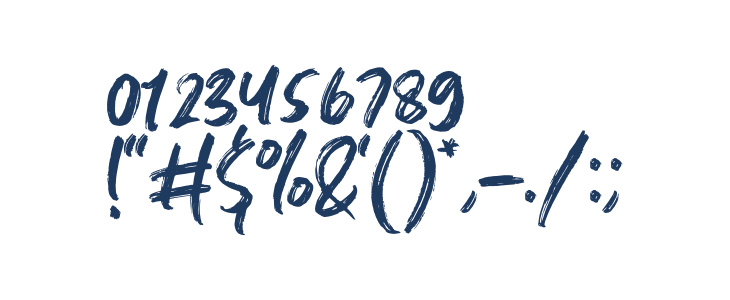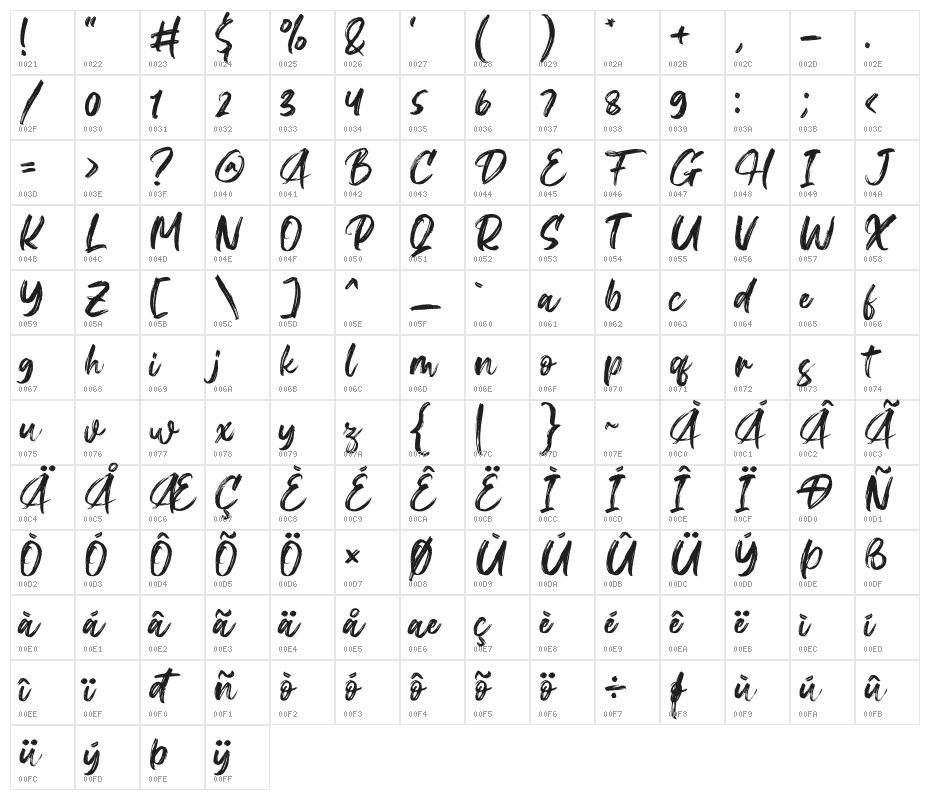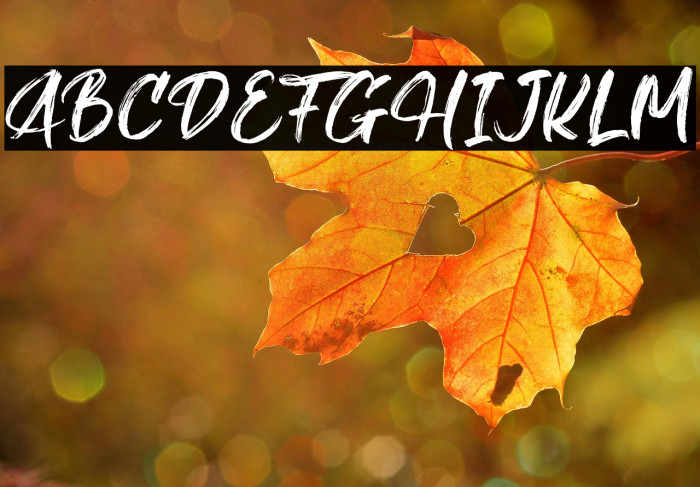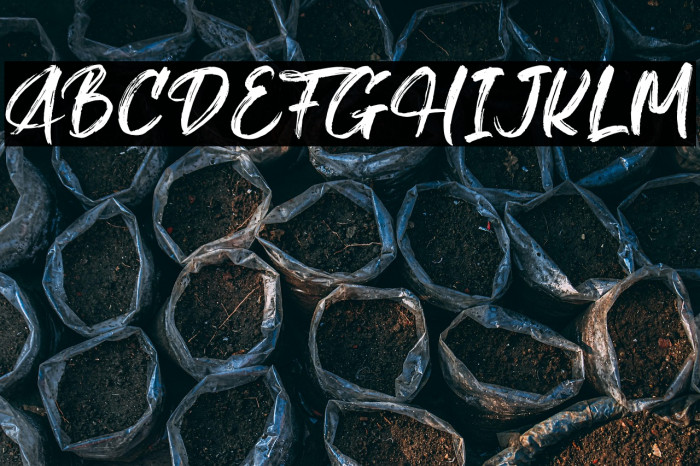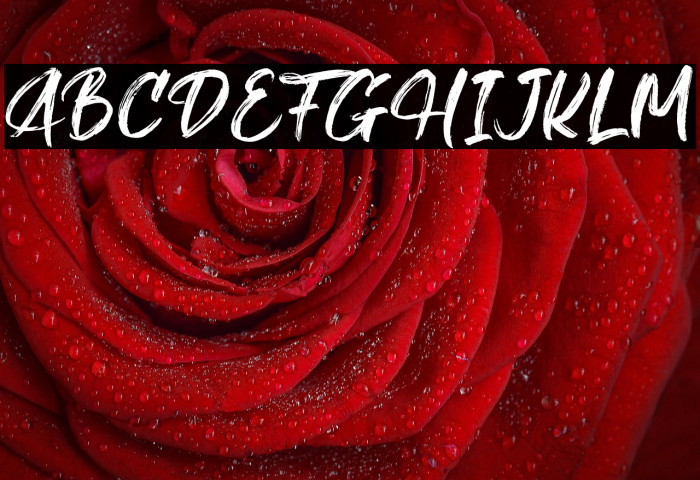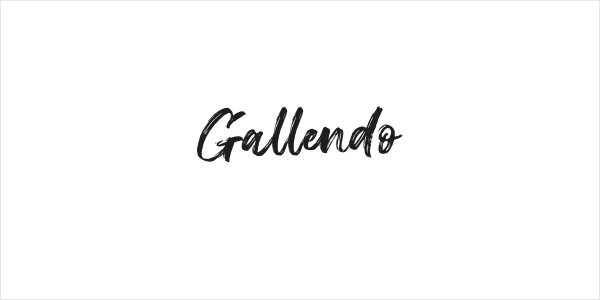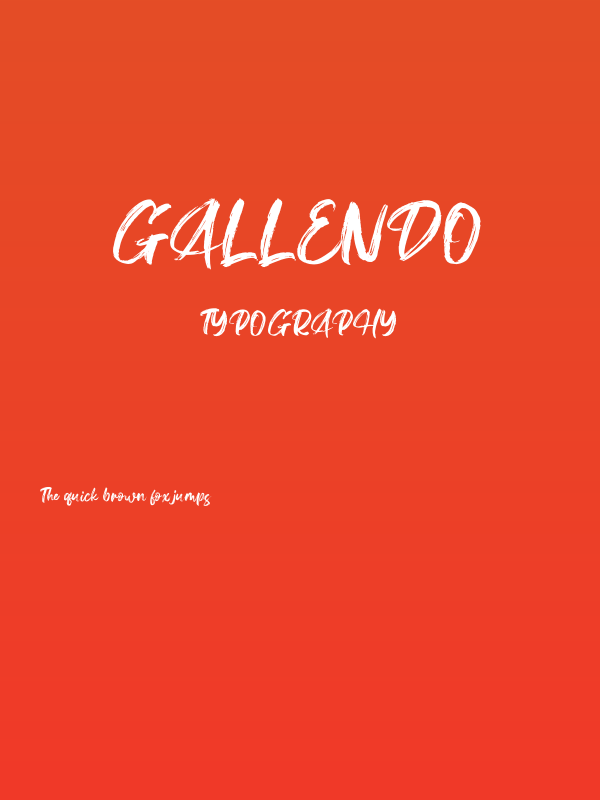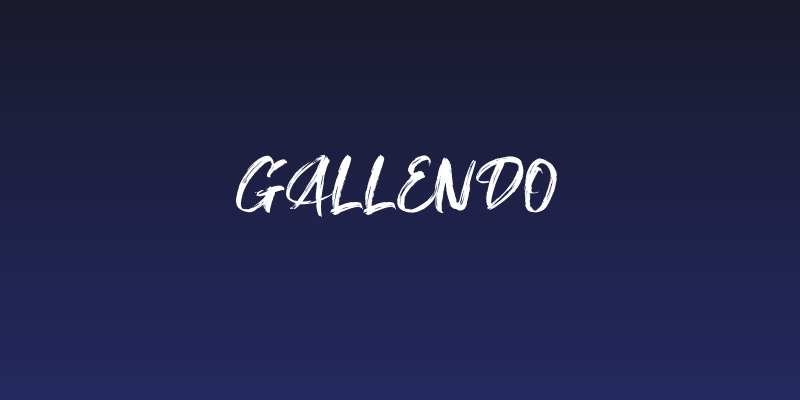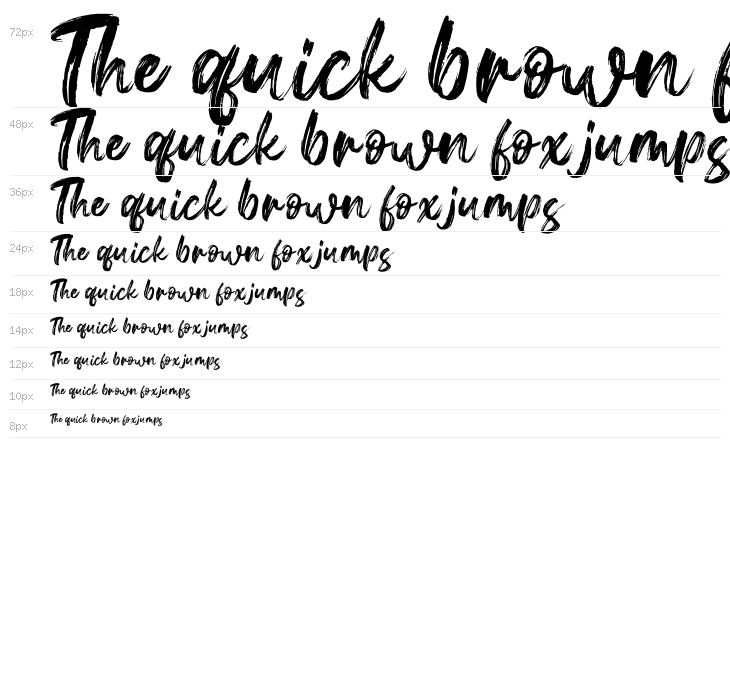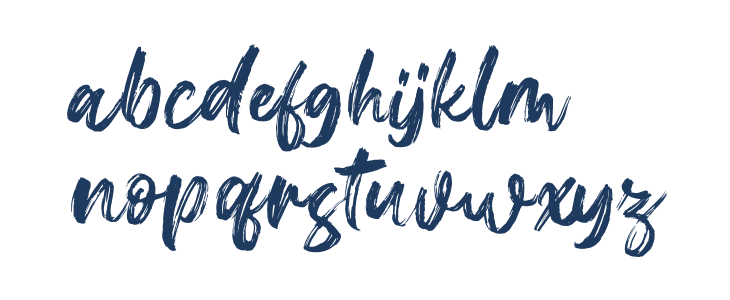
Gallendo Font
Gallendo Description
This font exudes a bold and expressive style, characterized by its brush-like strokes and dynamic flow. The letters are crafted with a sense of movement and energy, making each character appear as if it was painted with a broad brush. The uppercase and lowercase letters maintain a consistent style, with varying stroke widths that add a sense of depth and texture. The numerals and special characters follow the same artistic approach, ensuring a cohesive look across all glyphs. This font's unique style makes it stand out, offering a creative and artistic flair.
| Overall Style | Artistic, Expressive |
| Use Case | Logos, Posters, Creative Designs |
| Proposed Projects | Ideal for artistic projects, branding, posters, and creative designs that require a bold statement. |